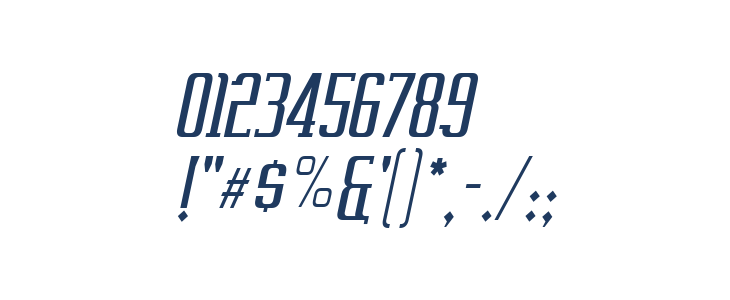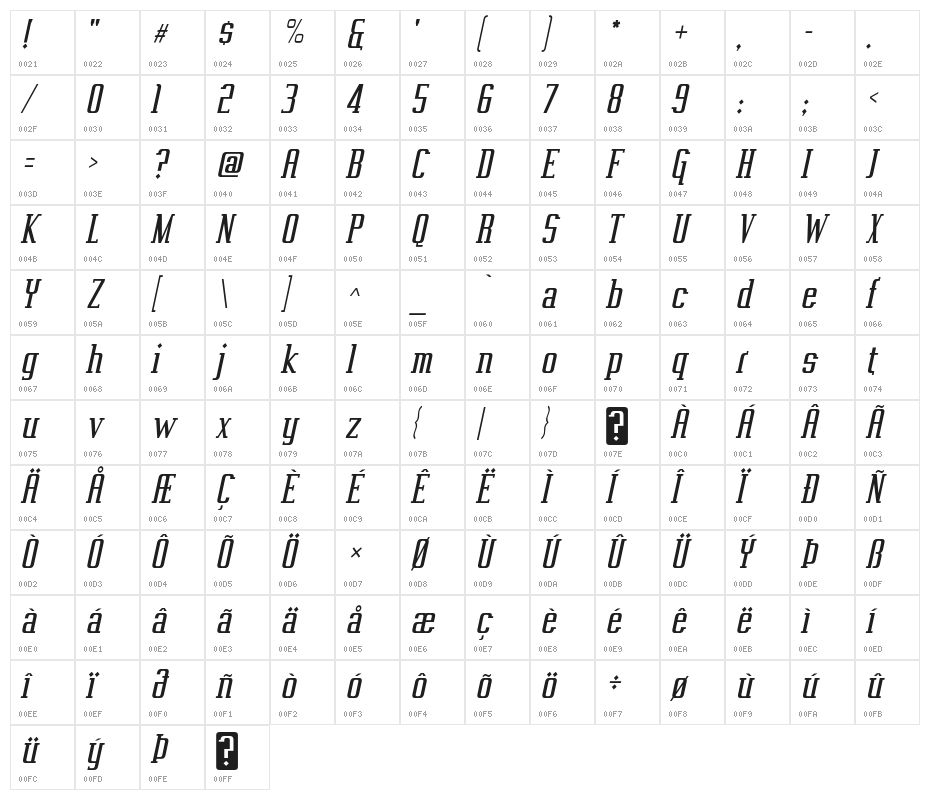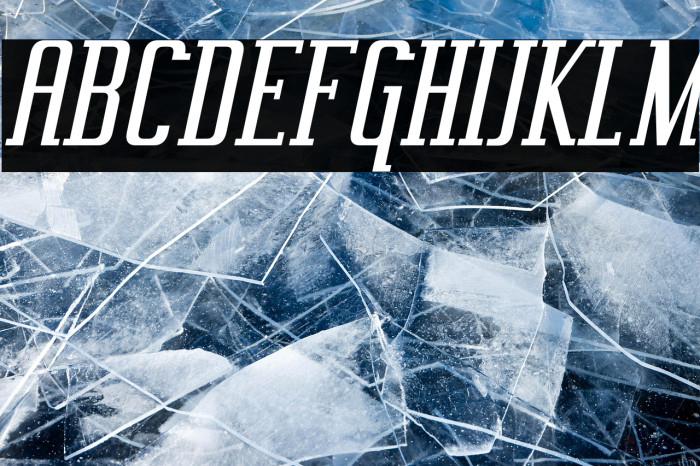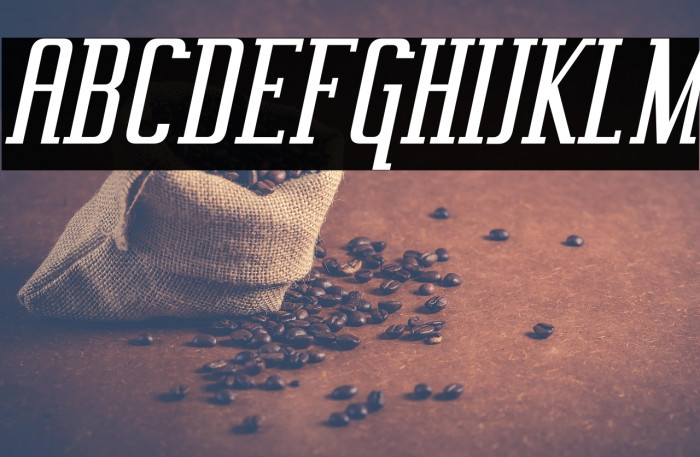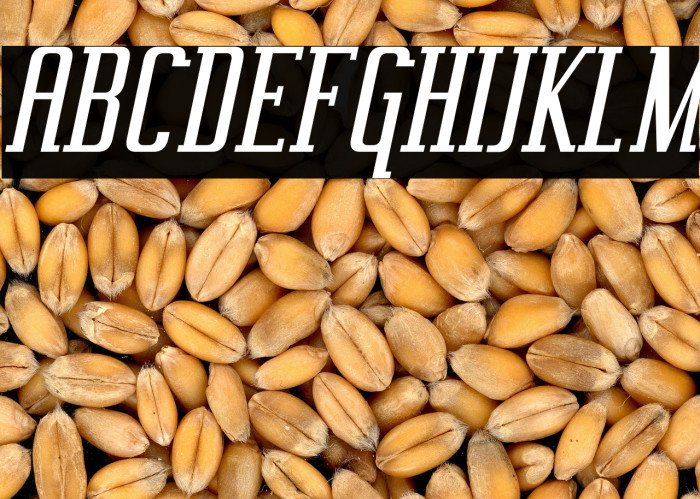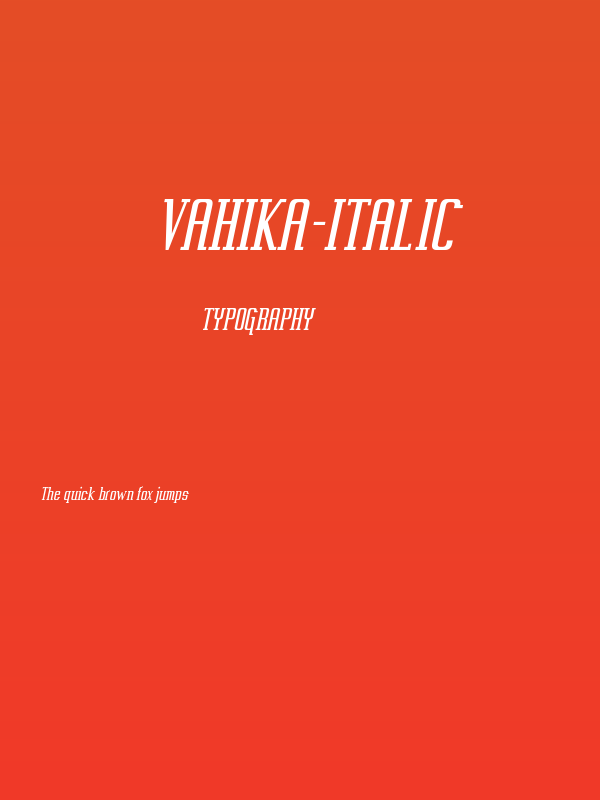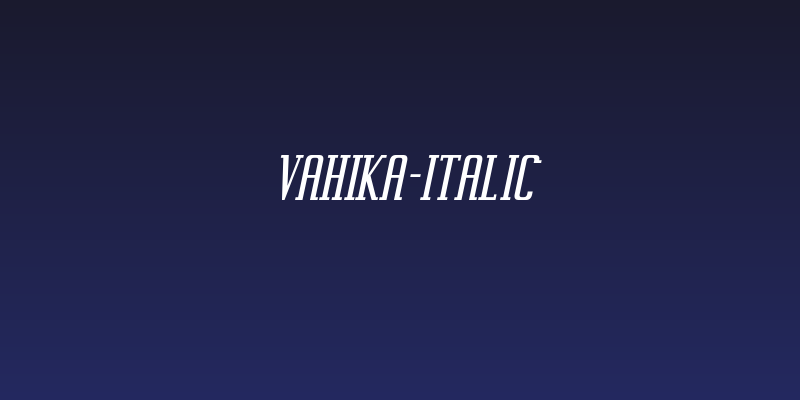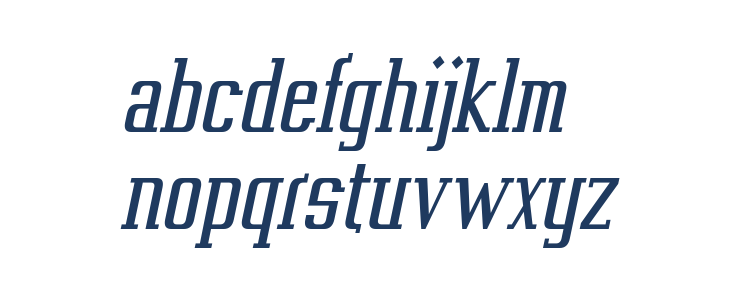
Vahika-Italic Font
Vahika-Italic Description
This font exhibits a dynamic and modern style with a distinct italic slant, giving it a sense of motion and energy. The characters are elongated with sharp, angular serifs, contributing to a sleek and sophisticated appearance. The uppercase and lowercase letters maintain a consistent height and width, ensuring readability while adding a touch of elegance. The numerals and special characters are designed to match the overall aesthetic, with a uniform stroke weight that enhances the font's cohesive look. This typeface is well-suited for projects that require a contemporary and stylish touch.
Use CaseHeadlines, Logos, Editorial design
Proposed ProjectsIdeal for branding, editorial design, fashion magazines, and dynamic advertising campaigns.